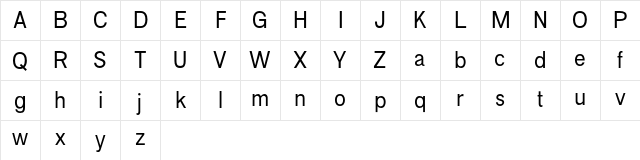
Galdien Demo Regular Free Font
Galdien Demo Regular
Foundry: Craft Supply Co
Designer: Craft Supply Co
Design Context for Galdien Demo
Galdien Demo is a composed and adaptable typeface that performs quietly and consistently across a wide range of design contexts.
Pro Tip: Use Galdien Demo in both headline and body roles to test its range before committing to a single application.